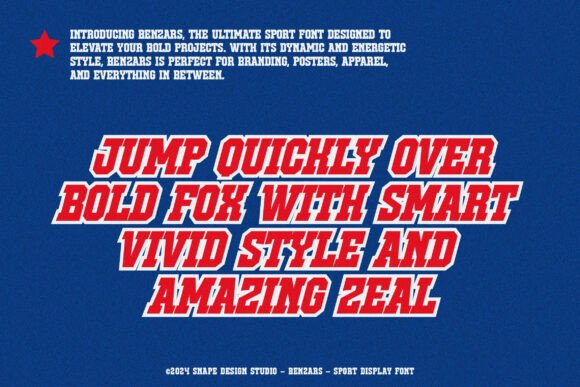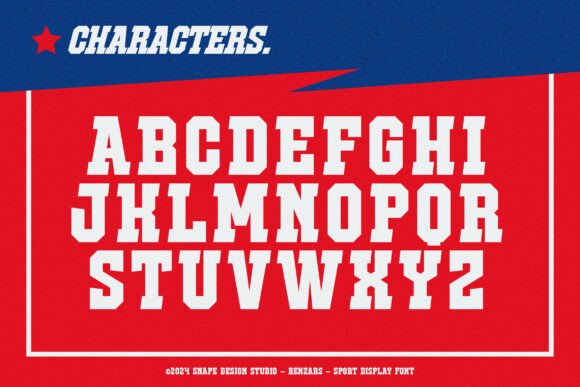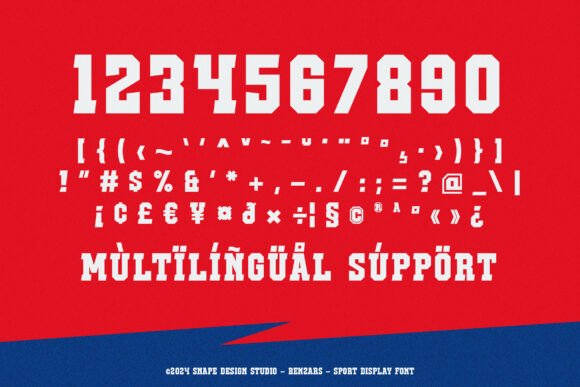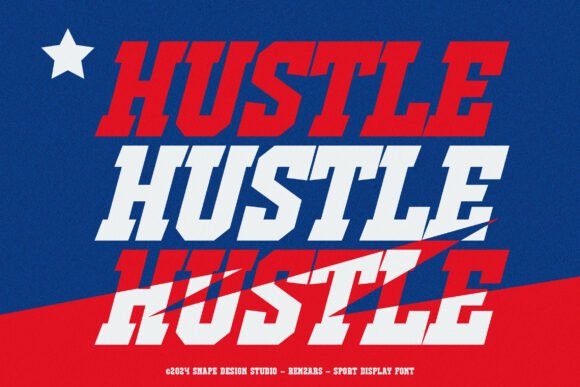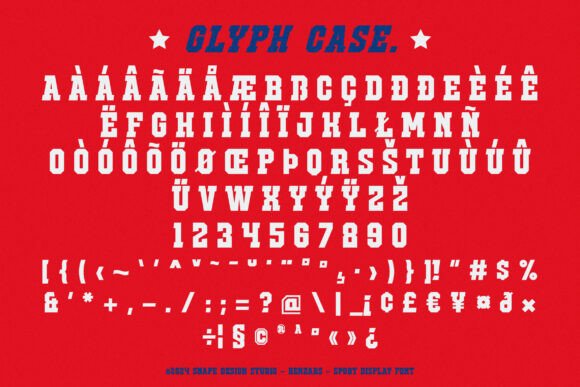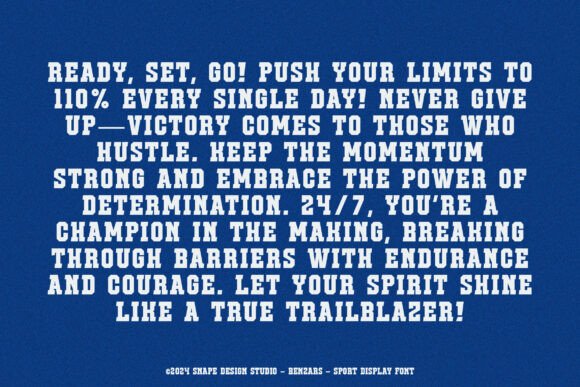
Introducing Benzars: The Ultimate Sport Font for Bold Projects
Are you tired of using the same old fonts for your sports-related projects? Look no further than Benzars, the dynamic and energetic sport font designed to take your branding, posters, apparel, and more to the next level. In this article, we’ll dive into the world of Benzars and explore its features, benefits, and uses.
The Birth of Benzars
Benzars is a carefully crafted font designed specifically for sports enthusiasts, designers, and crafters. Its creation was inspired by the need for a unique and attention-grabbing font that could capture the essence of sports and fitness. With Benzars, you can add a touch of dynamism and energy to your projects, setting them apart from the rest.
Key Features of Benzars
So, what makes Benzars stand out from other fonts? Here are some of its key features:
• Dynamic and Energetic Style: Benzars boasts a bold and energetic style that’s perfect for sports-related projects. Its dynamic curves and sharp lines evoke a sense of movement and action.
• Versatile: Whether you’re designing a logo, poster, or apparel, Benzars is versatile enough to fit any project. Its clean and modern design ensures that it will work seamlessly across various mediums.
• Easily Customizable: With Benzars, you can easily customize the font to suit your needs. Adjust the lettering, spacing, and size to create a unique look that reflects your brand’s personality.
Benefits of Using Benzars
So, why choose Benzars over other fonts? Here are some benefits of using Benzars:
• Stand Out from the Crowd: With Benzars, you can create bold and eye-catching designs that grab attention. Its unique style ensures that your projects will stand out in a crowded market.
• Professional Look and Feel: Benzars is designed to give your projects a professional look and feel. Its clean lines and modern design make it perfect for high-end branding and marketing materials.
• Time-Saving: With Benzars, you can save time and effort in designing your projects. Its versatility and customizability mean that you can use it across various mediums, reducing the need for multiple font designs.
Uses of Benzars
Benzars is perfect for a wide range of projects, including:
• Branding: Use Benzars to create bold and memorable logos that capture the essence of your brand.
• Posters: Design eye-catching posters that grab attention with Benzars’ dynamic and energetic style.
• Apparel: Add a touch of sporty style to your apparel designs with Benzars. Its bold and modern design looks great on t-shirts, hoodies, and more.
• Social Media Graphics: Use Benzars to create engaging social media graphics that stand out in crowded feeds.
Tips for Using Benzars
Here are some tips for getting the most out of Benzars:
• Experiment with Different Sizes and Styles: Don’t be afraid to experiment with different sizes and styles to find the perfect look for your project.
• Pair with Other Fonts: Benzars pairs well with other fonts. Try combining it with a clean sans-serif font for a bold and modern look.
• Use it Across Various Mediums: Take advantage of Benzars’ versatility by using it across various mediums, from print to digital.
In conclusion, Benzars is the ultimate sport font for bold projects. Its dynamic and energetic style, versatility, and customizability make it perfect for designers and crafters looking to add a touch of sporty style to their work. Whether you’re designing a logo, poster, or apparel, Benzars is sure to elevate your projects to the next level. So why wait? Try Benzars today and experience the power of bold typography!